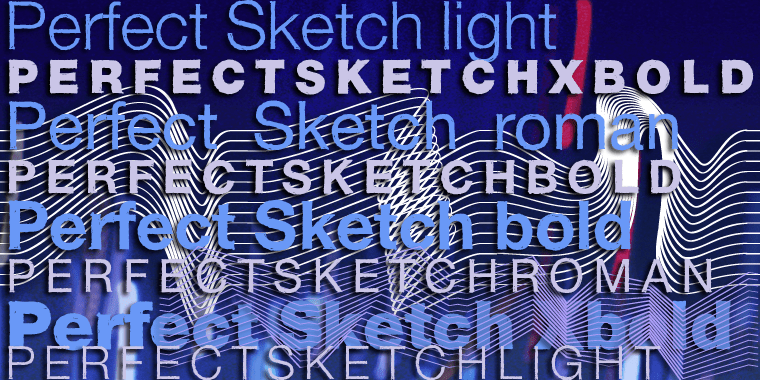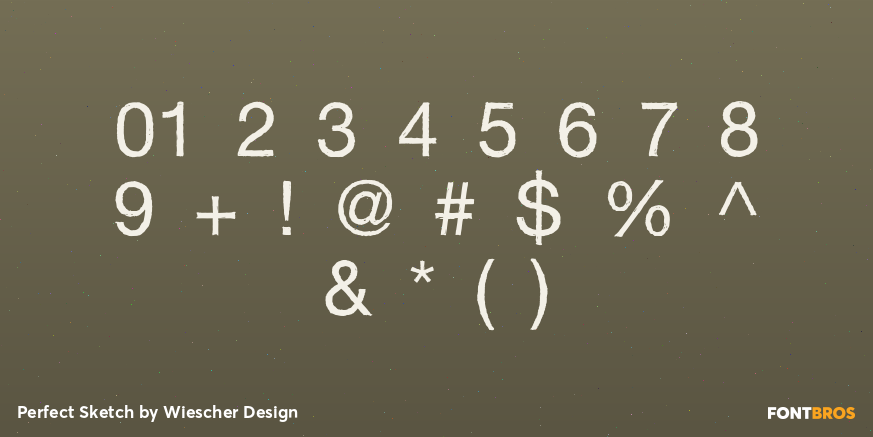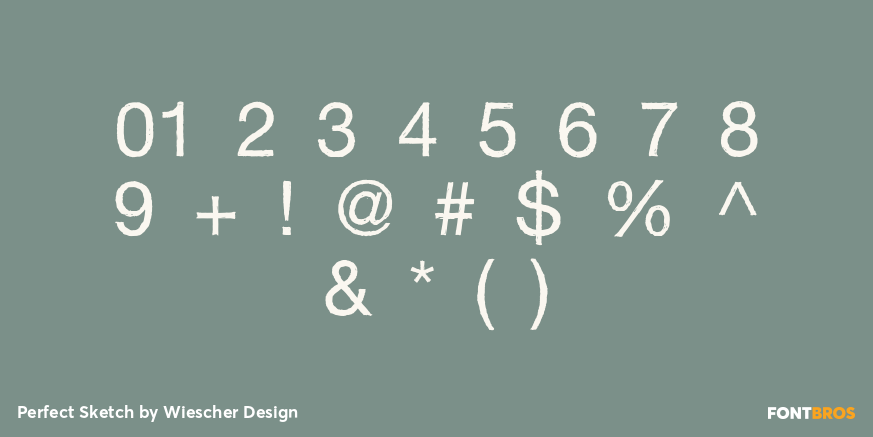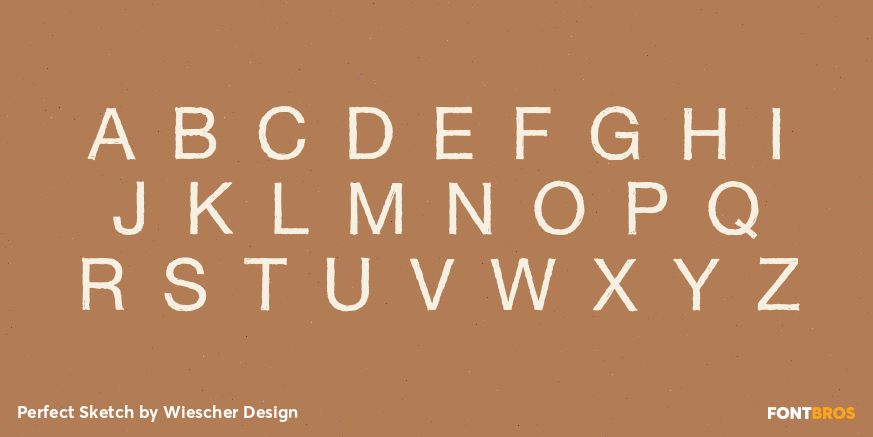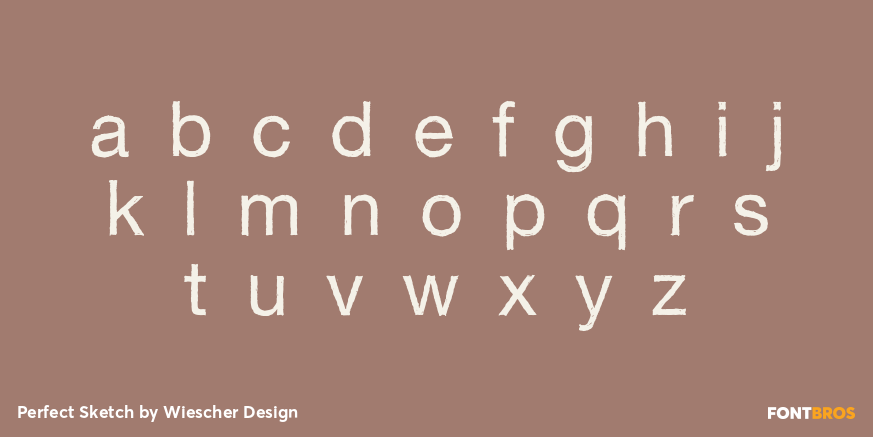
Perfect Sketch
Font Family by Wiescher Design
Perfect Sketch is a classic Grotesk Typeface drawn with care by hand to imitate the way we used to sketch headlines before the ascent of computer based design.